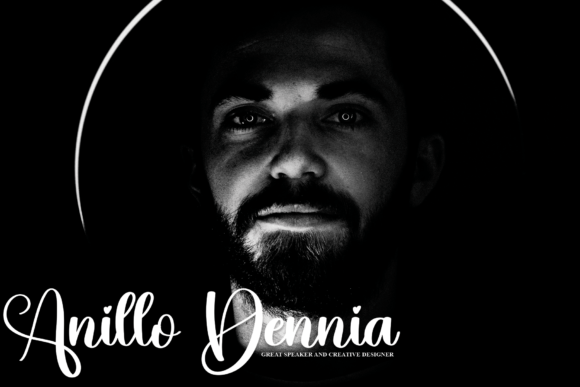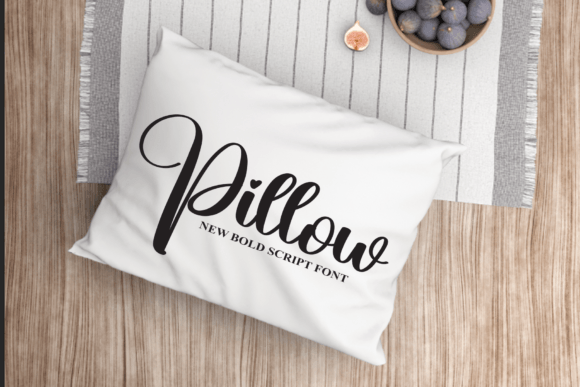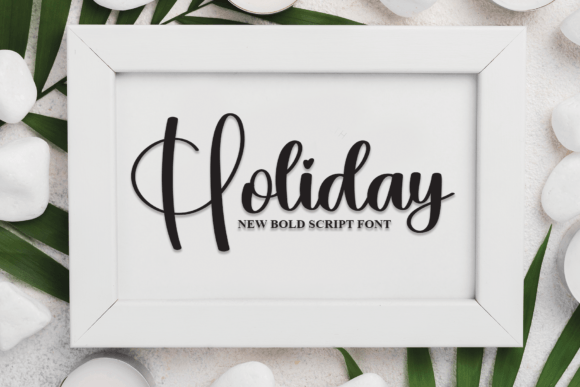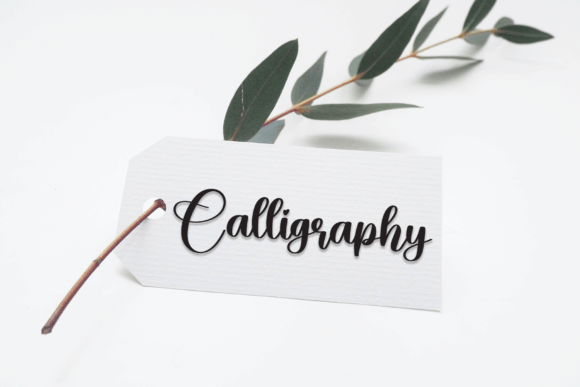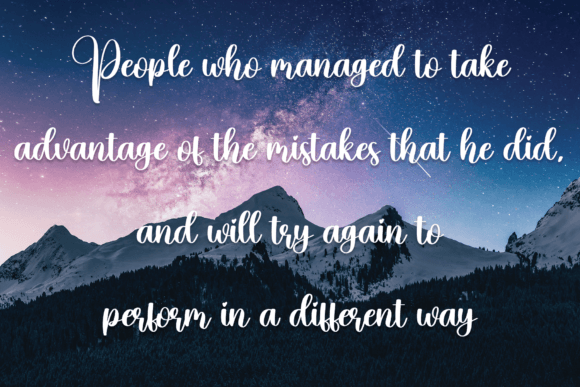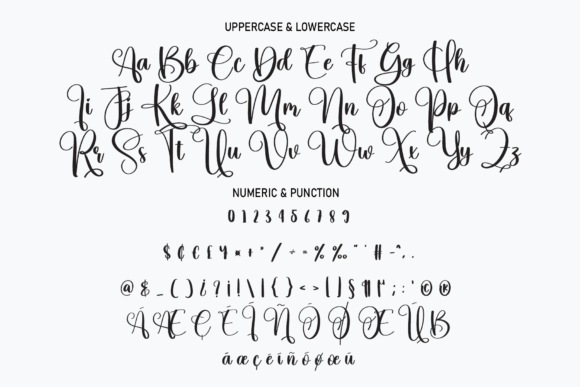
Introduction to Dance Font
Have you ever stared at a blank page, eager to bring a creative project to life, but struggling to find the perfect font to set the tone? That’s where the magic of Dance Font comes in – a beautiful, handwritten font that will transport your designs to new heights.
Designed with love and care, Dance Font masterfully blends classic calligraphic influences with a modern, fresh touch. Whether you’re working on a marketing campaign, a wedding invitation, or a blog post, this stunning font will elevate your design to new levels. Its versatility and high-quality design make it an invaluable resource for designers of all levels, and the best part? It’s available for free download, allowing you to experiment and explore its endless possibilities on a transparent background.
Key Features of Dance Font
- High-quality, vector-based font with a transparent background, ideal for use in creative projects that require a clean and modern design.
- Includes multiple font styles, including bold, italic, and regular, allowing for versatility in design applications.
- Designed with a modern aesthetic, Dance Font is perfect for use in digital art, graphic design, and other creative projects.
- Unique characteristics include a dynamic, dance-inspired design element, making it perfect for use in projects related to music, dance, or performance art.
Honest Review: Dance Font
I recently stumbled upon the Dance Font, a highly sought-after design resource for creative projects. As a designer, I was excited to dive in and see what it has to offer.
First impressions: the font is visually stunning, and its high quality is evident from the get-go. I appreciate the fact that it’s available as a free download, making it accessible to designers of all levels.
Here are some aspects that work well: ✨
- Unique and playful style that’s perfect for creative projects
- Wide range of characters, including special symbols and punctuation
- Transparent background, making it easy to layer with other design elements
However, I do have some reservations: ⚠️
- Some characters may not display correctly in certain fonts or environments
- Limited customization options, which may limit its use in certain projects
Overall, I’m impressed with the Dance Font. While it’s not perfect, its strengths far outweigh its limitations. As a design resource, it’s definitely worth checking out – especially for creative projects where a unique and playful font can make all the difference.
Dance Font
Dance Font is a high-quality, free design resource perfect for adding a touch of creativity to your projects. With its unique style and transparent background, this font is ideal for designers looking for a fresh and modern look.
Use Dance Font to add a creative touch to your projects, such as:
- Creating eye-catching headings and titles
- Designing social media graphics and posters
- Adding a personal touch to presentations and documents
Dance Font is perfect for:
- Music and dance-related projects
- Artistic and creative projects
- Marketing and advertising campaigns
When to use: Wedding invitations, luxury branding, or any design that needs a touch of sophistication.